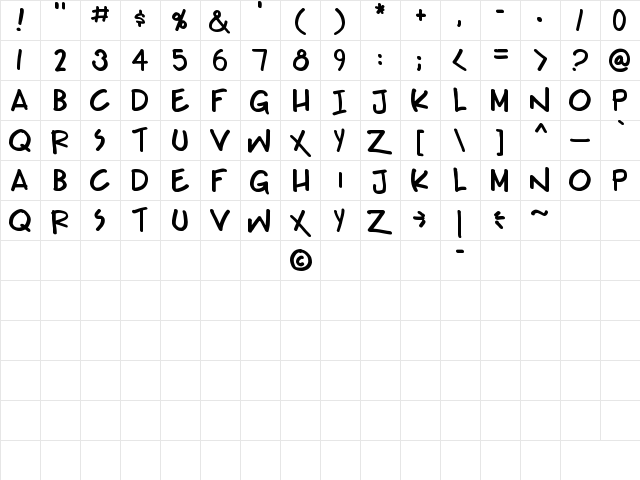
Teabeer Custom Bold
Design Context for Teabeer Custom Typeface
Teabeer Custom is a composed and adaptable typeface that performs quietly and consistently across a wide range of design contexts. The heavy weight commands attention and anchors typographic hierarchies.